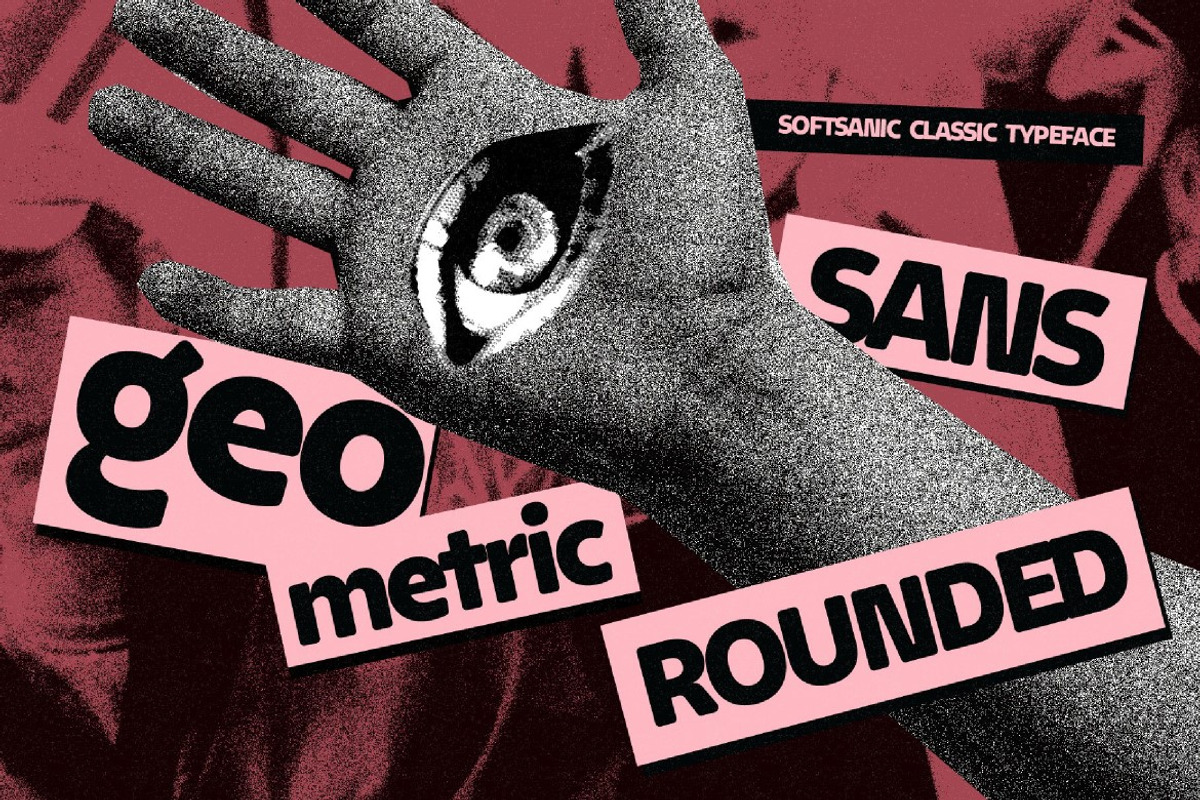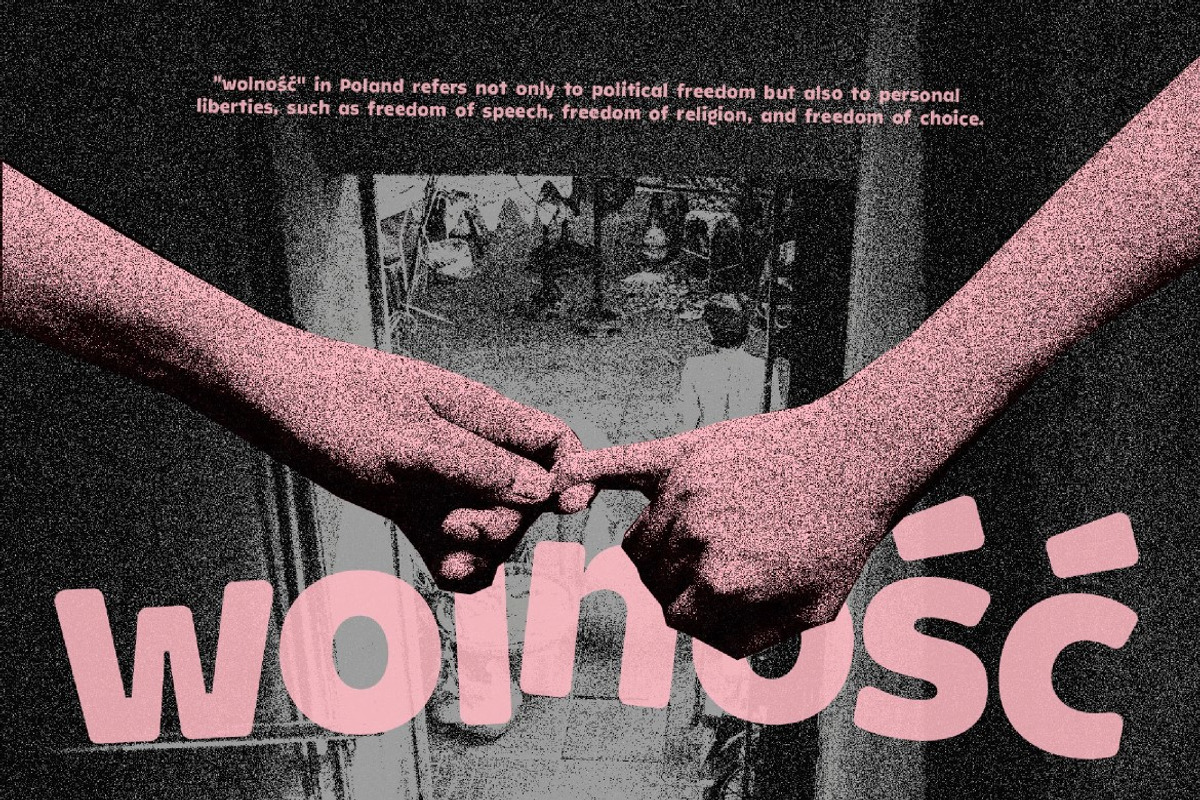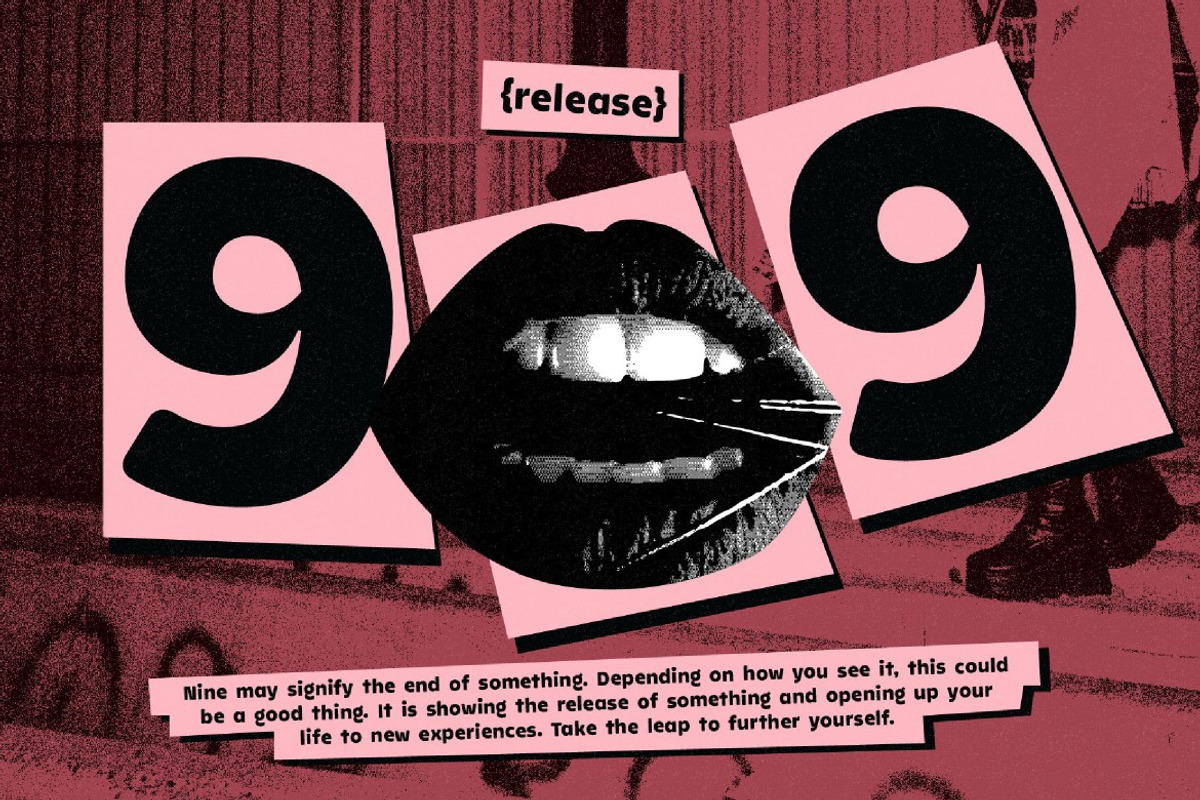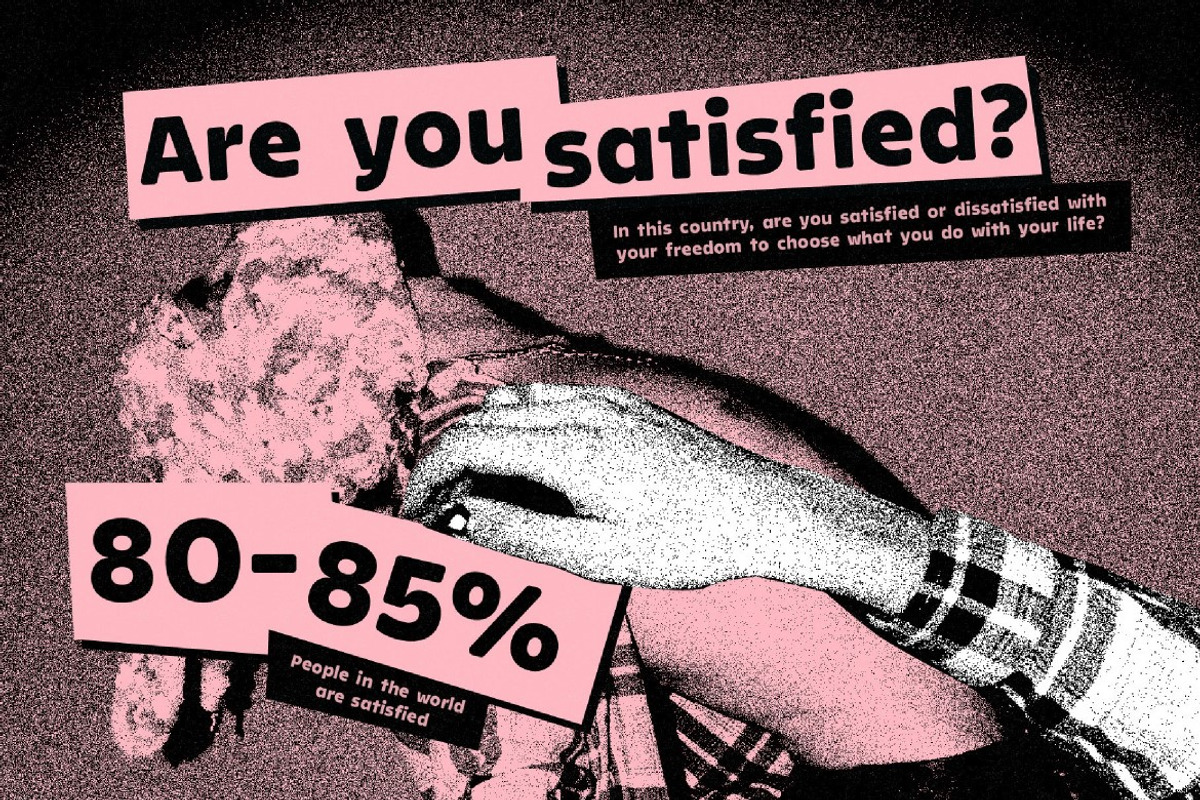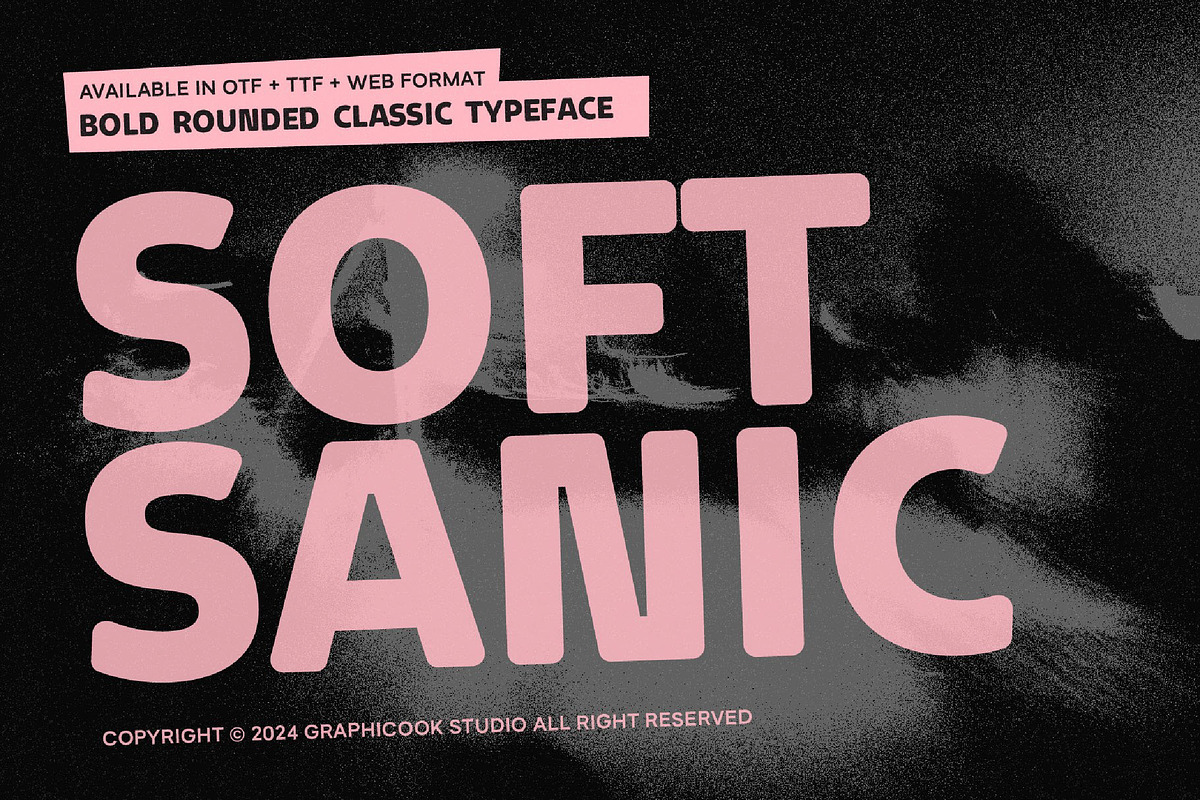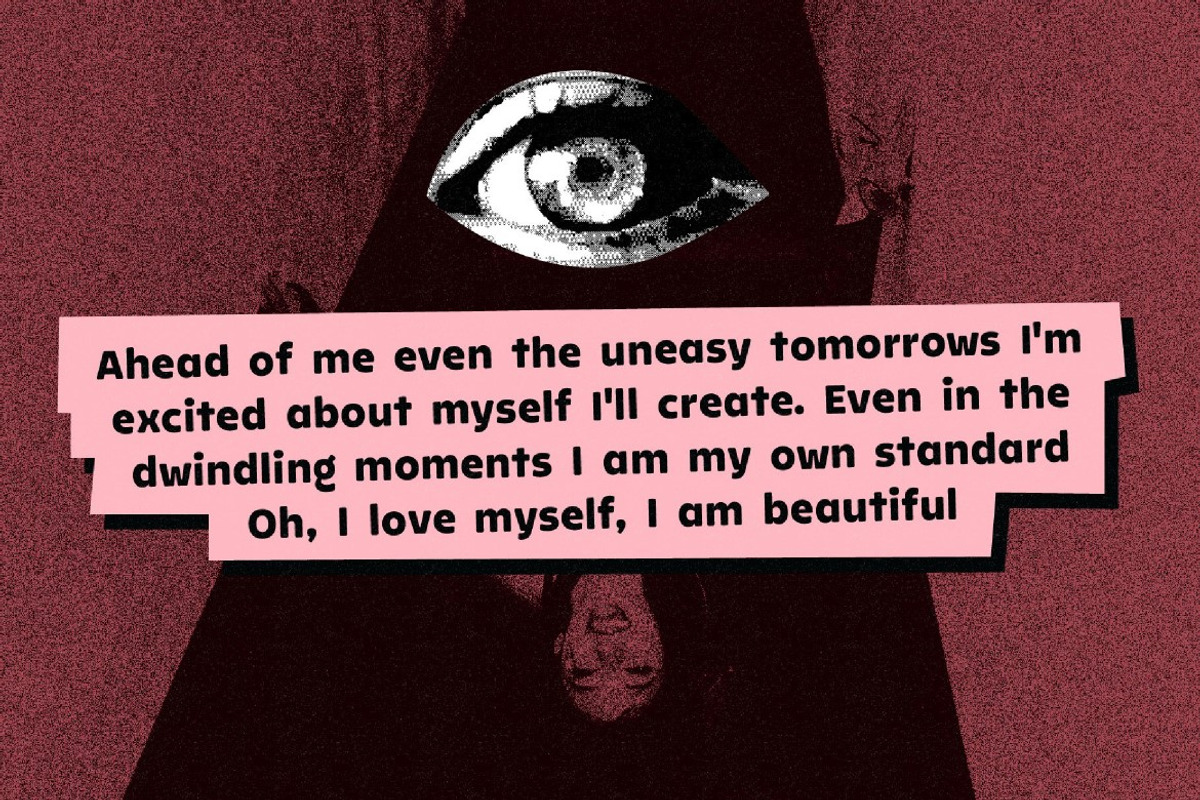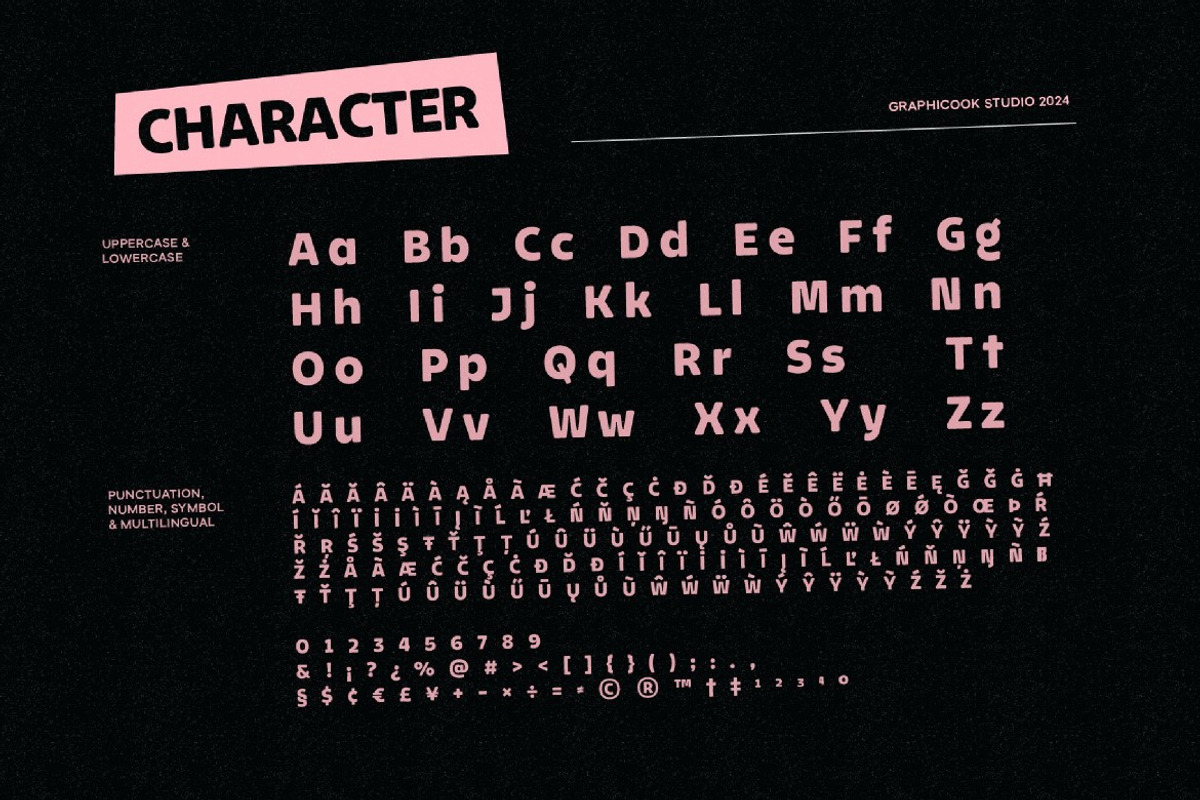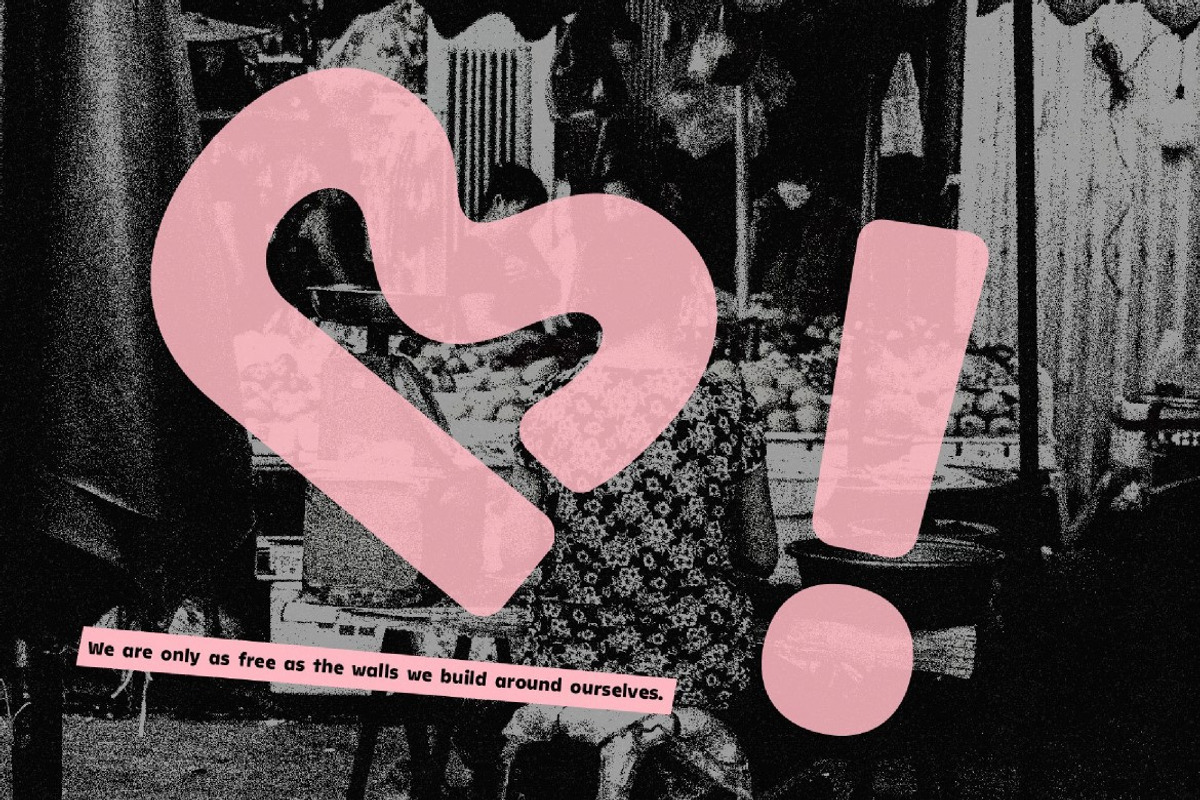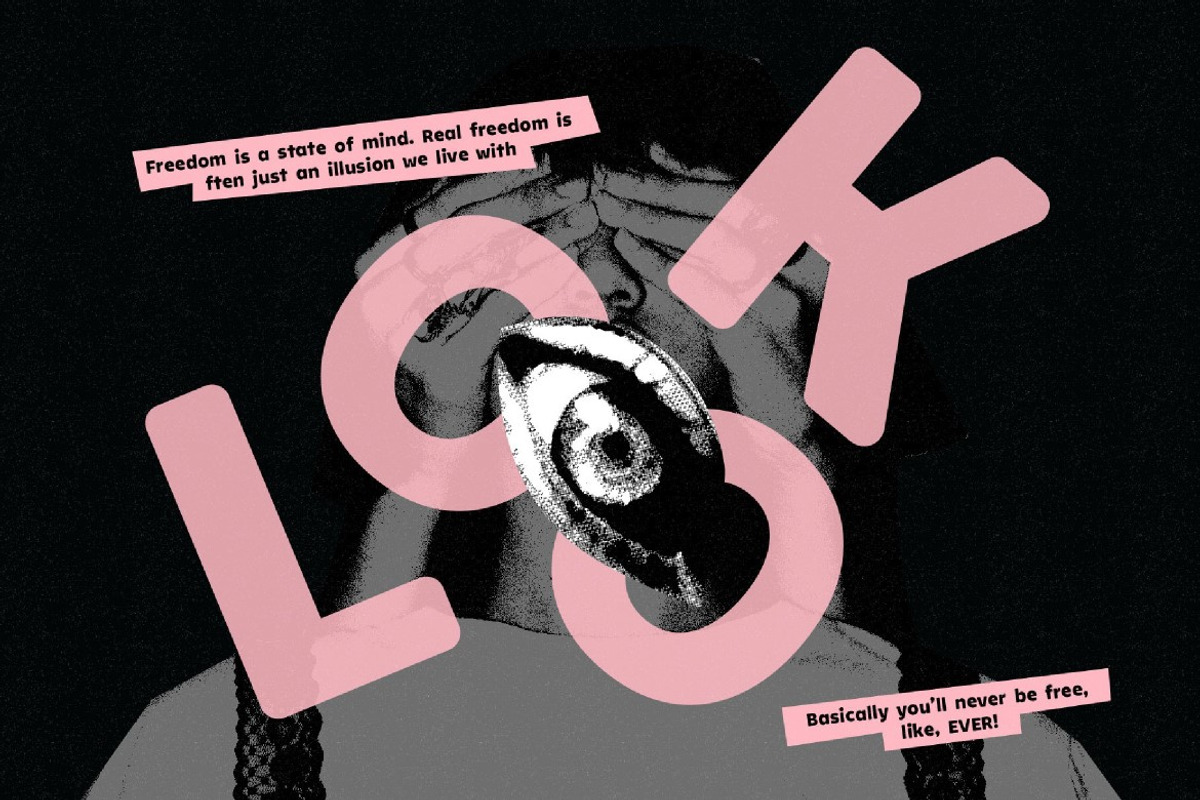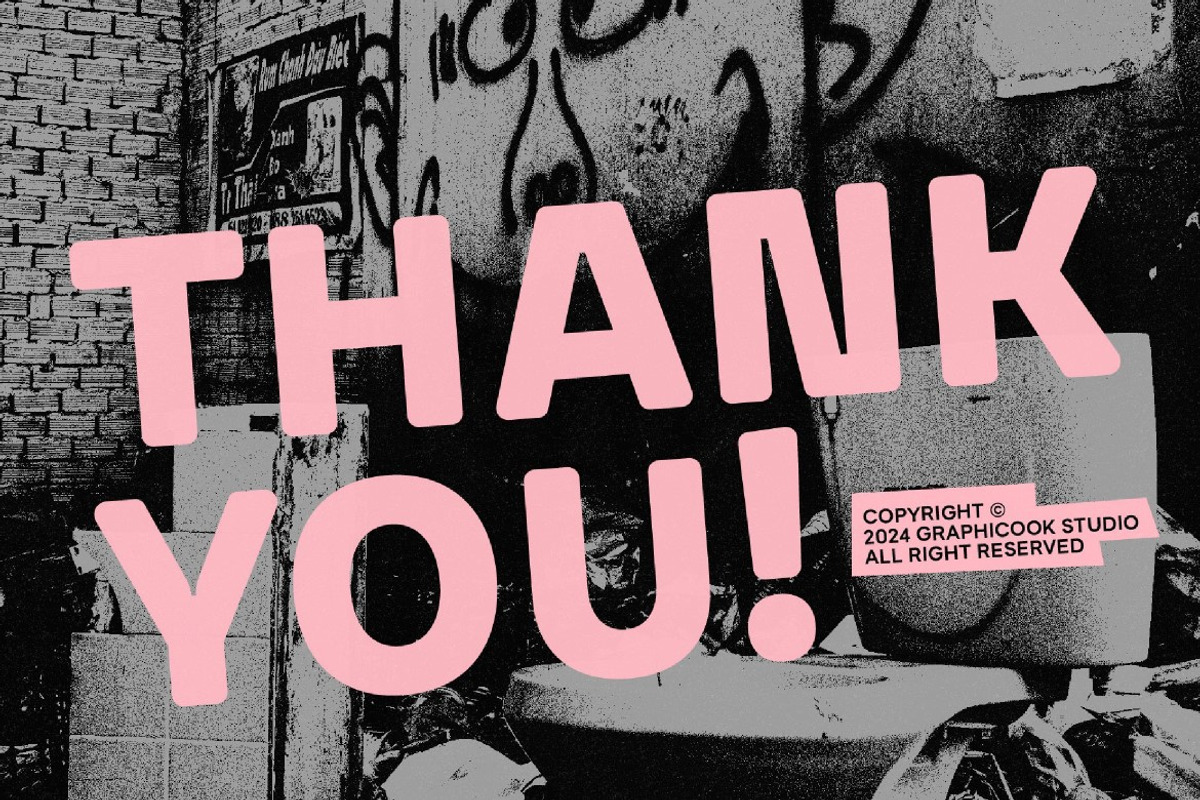
Softsanic
Softsanic is a rounded sans serif font packed with an abstract grunge style. The versatility of this font makes it suitable for all design projects.
Seryfold is perfect for headlines, logotypes, magazines, packaging, quotes, movies, games, cover albums, book covers, and flyers, it's a perfect solution for creating eye-catching designs that stand out in any context.